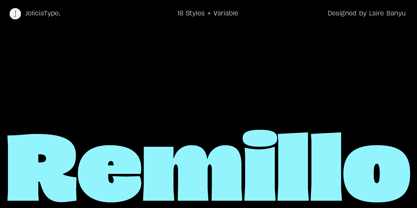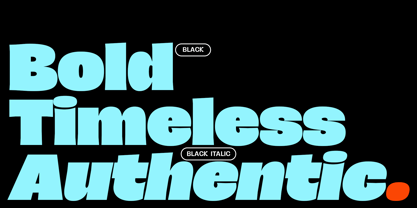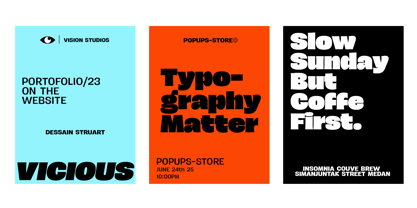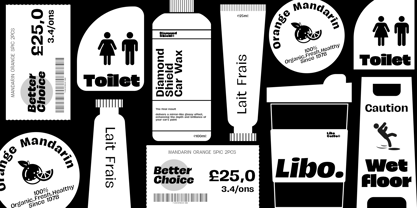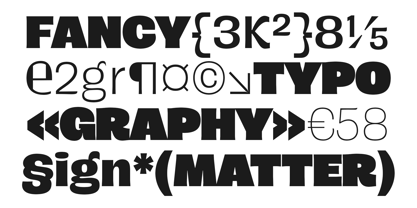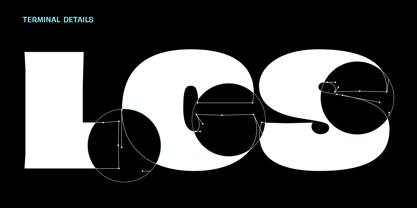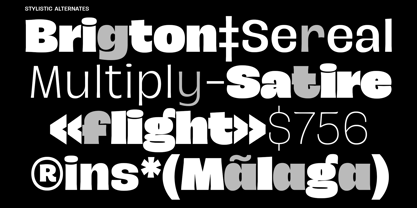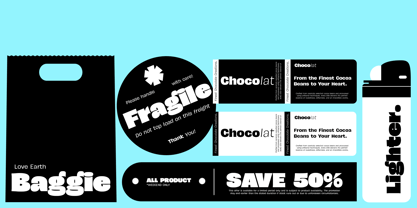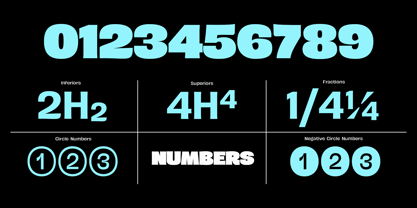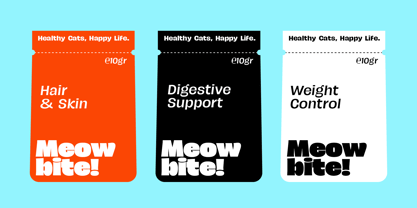
JT Remillo
The JT Remillo Font Family was designed by Laire Banyu and published by Jolicia Type. JT Remillo contains 19 styles and family package options.
JT Remillo is a humanist sans-serif typeface that blends organic elegance with high readability. Featuring a total of 18 styles plus 1 variable font, JT Remillo comes in Upright and Italic versions, with a 10-degree slant, adding a dynamic touch to its typography.
The Black style of JT Remillo is perfect for headings, delivering a bold and strong presence. With a balance of humanist forms and visual clarity, this typeface is ideal for a wide range of design projects, from branding and editorial design to digital interfaces.